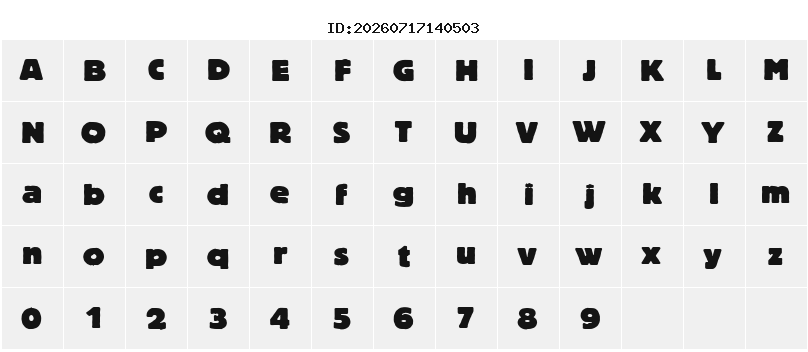
• Font Name: BlockTHea
• Full Font Name: BlockTHea
About BlockTHea.ttf
BlockTHea.ttf is a modern, elegant sans-serif font designed for ultimate readability and visual harmony. Perfect for branding, headlines, web design, and print materials.